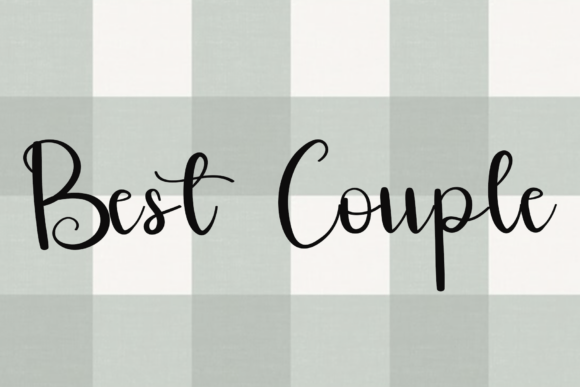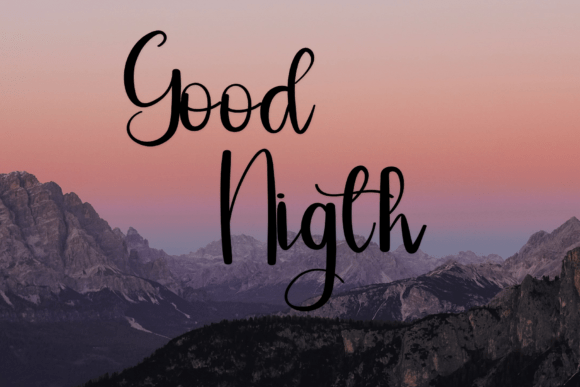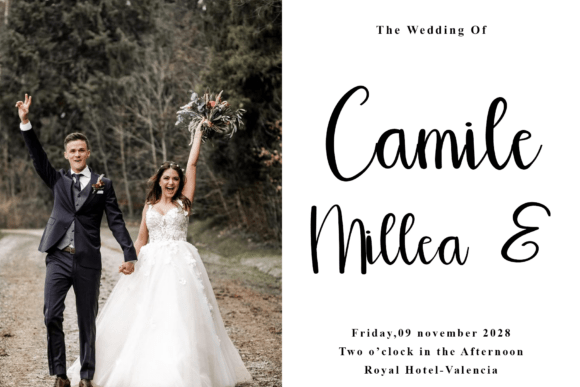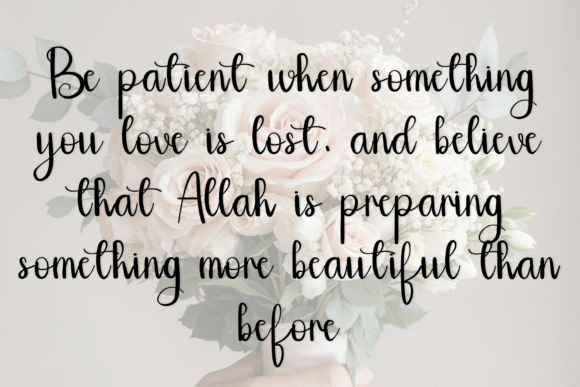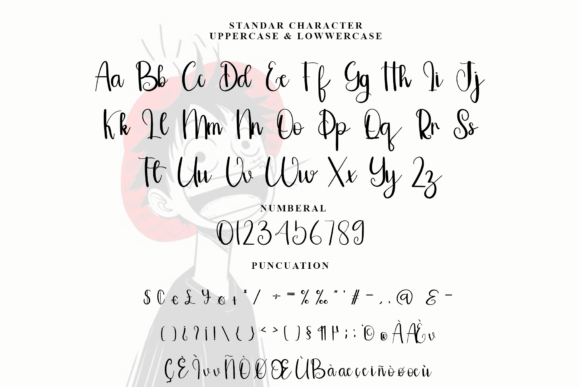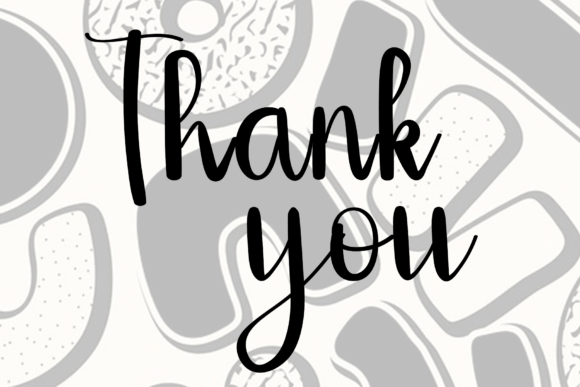
The Perfect Script: Elevating Your Designs with Display Font
Remember the thrill of discovering a font that perfectly captures the essence of your creative vision? It’s a feeling that’s hard to replicate, but one that can make all the difference in bringing your project to life. For designers, finding the right font can be a game-changer, and that’s where Display Font comes in – a luxurious script font that exudes refined charm and sophistication.
With its dramatic swashes and elegant curves, Display Font is the perfect choice for upscale branding, food packaging, and wedding invitations. Its timeless, high-contrast strokes give it a level of sophistication that’s hard to find in other fonts. For designers, Display Font is a valuable asset that can elevate their designs and help them stand out in a crowded market.
Key Features of Display Font
- Unique Characteristics: Display Font features a unique blend of modern and vintage elements, with clean lines, geometric shapes, and subtle textures, making it perfect for creating eye-catching headlines and titles.
Display Font Review
Overall, I’m a bit torn on the Display Font. While it has its moments, it also has some notable limitations. Let’s start with the good stuff: ✨ the font’s unique character sets are a major highlight. The way it combines elegant lines with bold strokes is simply stunning. The font’s versatility shines through in its ability to work well in a variety of settings, from digital signage to print materials.
Another thing that works well is ✨ the font’s legibility, even at larger sizes. This makes it perfect for use in headlines, titles, and other areas where you need to grab attention quickly.
Limitsations
One of the main issues I have with Display Font is ⚠️ its lack of consistency in certain weights. At times, the font feels a bit too loose or sloppy, which can be jarring. Additionally, the font’s italics can be a bit tricky to read, especially for longer blocks of text.
In the end, Display Font is a solid choice for projects where you need a bold, eye-catching font. However, it may not be the best option for longer blocks of text or projects that require a more precise, consistent look.
Recommendation
I would recommend Display Font for:
- Digital signage and advertising
- Print materials, such as posters and flyers
- Headings and titles in digital projects
However, I would advise against using Display Font for:
- Long blocks of text or body copy
- Projects that require precise, consistent typography